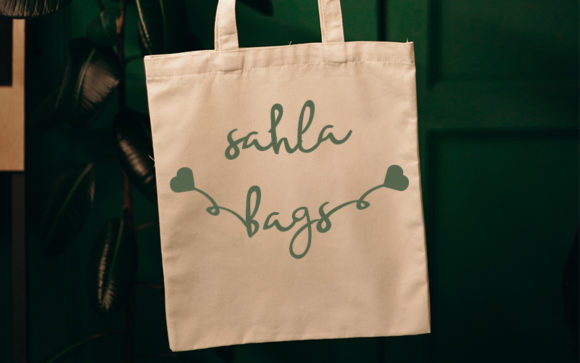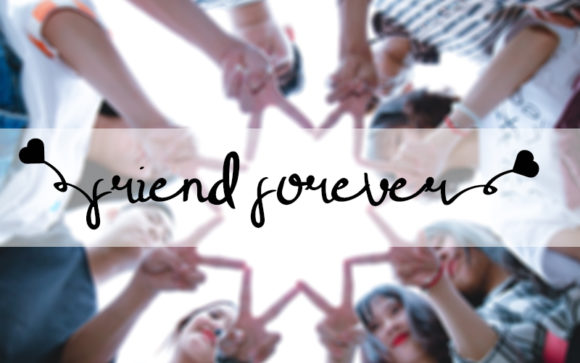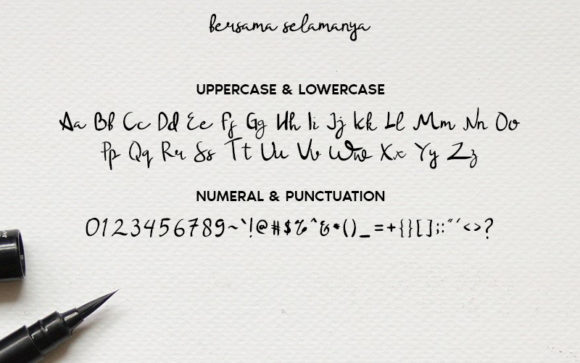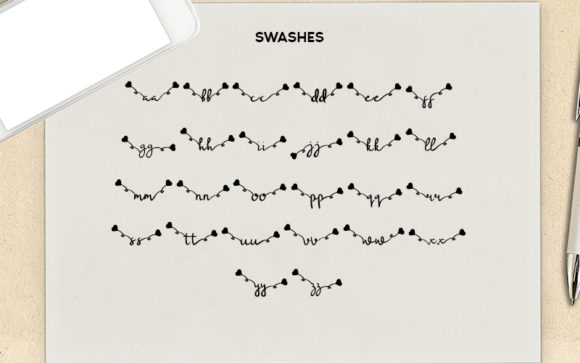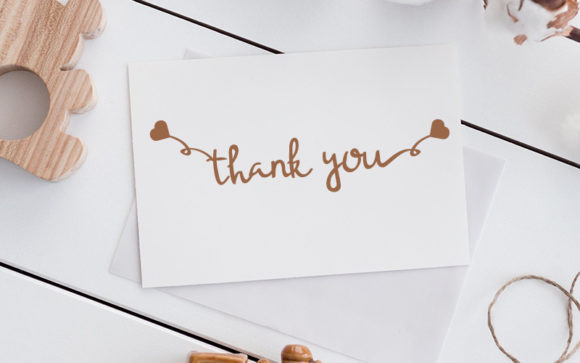
Bersama Selamanya Font
About Bersama Selamanya Font
Bersama Selamanya is a gorgeous and friendly script font. This font is PUA encoded which means you can access all of the glyphs and swashes with ease! It features a varying baseline, smooth lines, gorgeous glyphs and stunning alternates. Fall in love with its incredibly versatile style and use it to create spectacular designs!